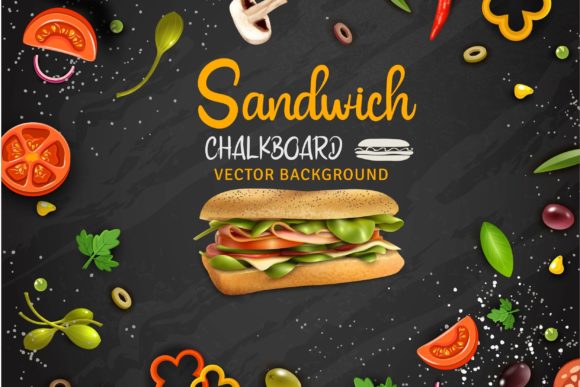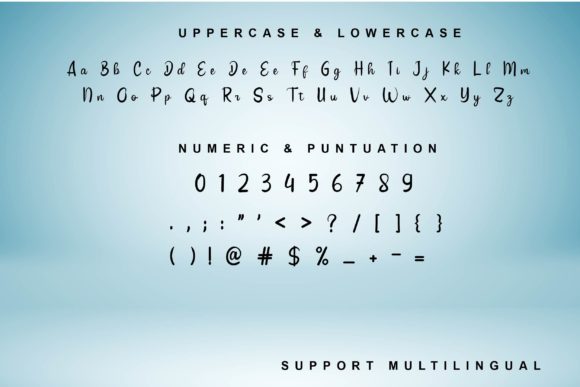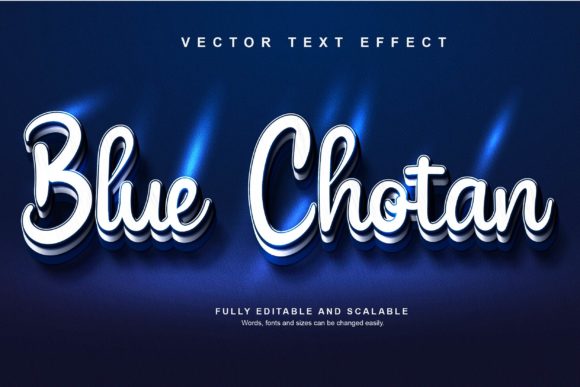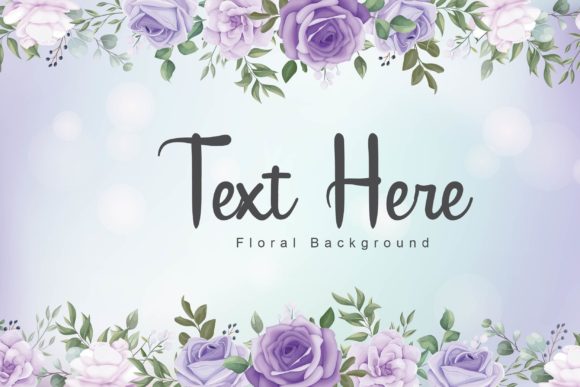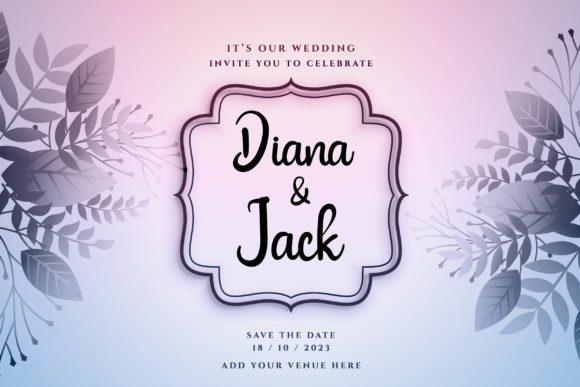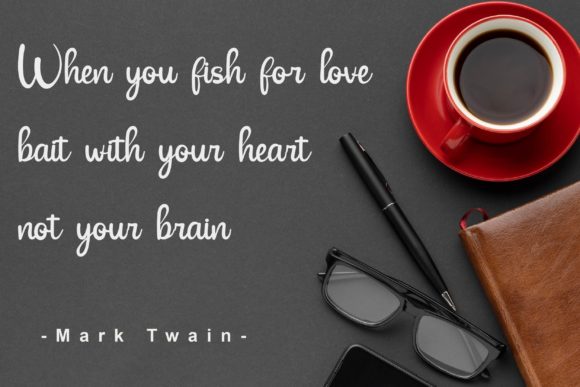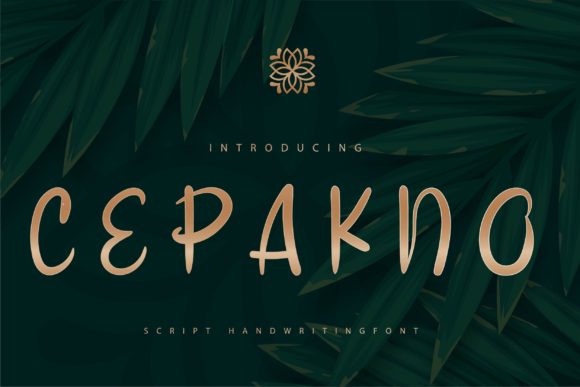
Cepakno Font: Elevate Your Designs with a Whimsical Script Font
In the world of typography, a well-chosen font can make all the difference in the success of a design project. For designers and crafters looking to add a touch of personality and whimsy to their creations, Cepakno Font is an excellent choice. This relaxed script font boasts a lovely style that can elevate any project, regardless of the topic or theme.
What is Cepakno Font?
Cepakno Font is a unique and charming script font that features a carefree and laid-back theme. Its distinctive style is characterized by flowing lines, gentle curves, and a relaxed demeanor that exudes a sense of friendliness and approachability. This font is perfect for designers who want to add a personal touch to their work, whether it’s for a branding project, a craft project, or a digital design.
Key Features of Cepakno Font
• Whimsical style: Cepakno Font features a playful and imaginative style that adds a touch of magic to any design.
• Relaxed theme: The font’s carefree and laid-back theme makes it perfect for designs that require a friendly and approachable tone.
• Elegant lines: Cepakno Font boasts flowing lines and gentle curves that give it a sophisticated and elegant look.
• Highly versatile: This font can be used for a wide range of design projects, from branding and advertising to crafting and digital design.
Benefits of Using Cepakno Font
Cepakno Font offers several benefits to designers and crafters, including:
• Unique style: Cepakno Font’s distinctive style sets it apart from other fonts, making it an excellent choice for designers who want to stand out from the crowd.
• Ease of use: This font is easy to read and works well in a variety of contexts, making it a versatile addition to any design project.
• Emotional connection: Cepakno Font’s whimsical style and relaxed theme can help create an emotional connection with the target audience, making it perfect for designs that require a personal touch.
• Time-saving: With Cepakno Font, designers can save time and effort, as this font can be used for a wide range of design projects, from logos and branding to social media graphics and digital art.
How to Use Cepakno Font
Cepakno Font can be used for a variety of design projects, including:
• Branding and logos: Use Cepakno Font to create unique and memorable logos that reflect your brand’s personality.
• Digital design: This font is perfect for digital designs, such as social media graphics, blog posts, and website headers.
• Crafting and DIY projects: Cepakno Font can add a personal touch to craft projects, such as handmade cards, invitations, and scrapbooking.
• Advertising and marketing: Use Cepakno Font to create eye-catching ads and marketing materials that stand out from the crowd.
Cepakno Font is a valuable addition to any designer’s font library, offering a unique and whimsical style that can elevate any project. With its relaxed theme, elegant lines, and highly versatile nature, this font is perfect for designers and crafters looking to add a personal touch to their work. Whether you’re working on a branding project, a craft project, or a digital design, Cepakno Font is an excellent choice.